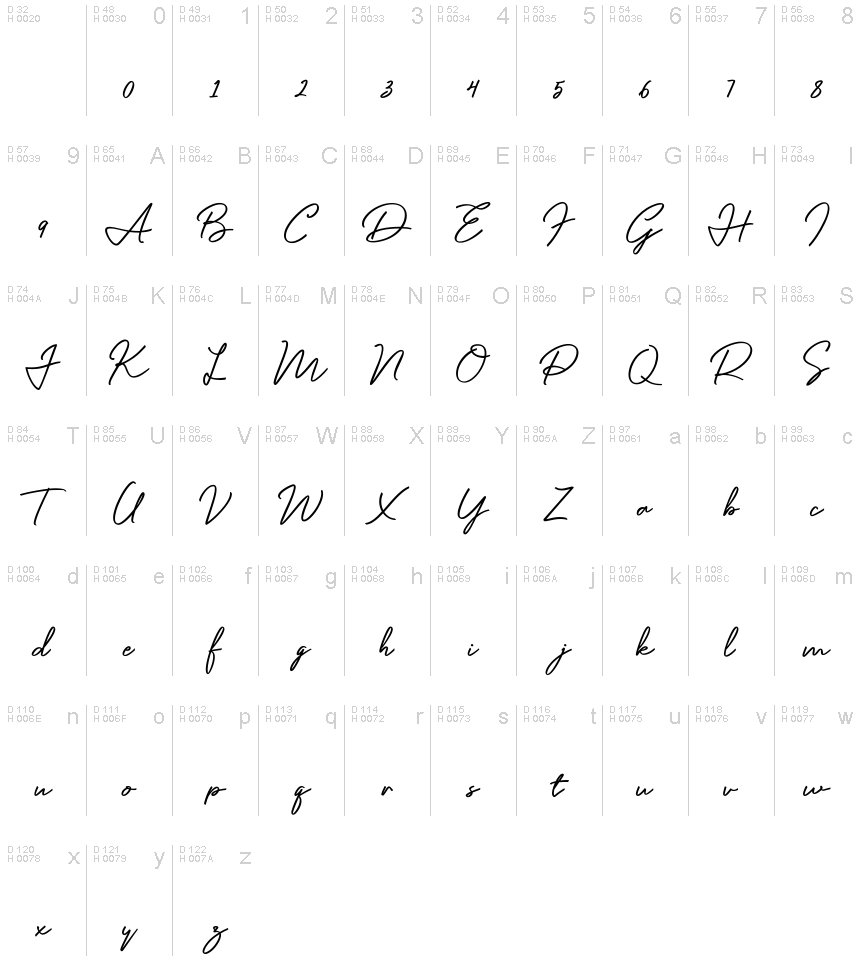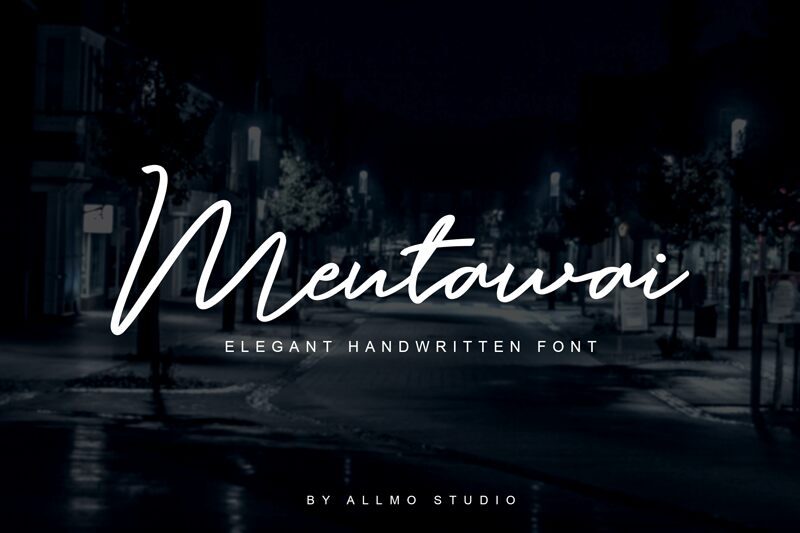
Mentawai
Mentawai is a captivating handwritten signature font that exudes a sense of effortless elegance. Crafted by the talented designers at www.movefont.com, this light and fluid script typeface seamlessly blends contemporary flair with the timeless charm of a handcrafted signature. The distinctive, organic strokes and natural rhythm of the letterforms lend an air of authenticity and personalization to any design.
Mentawai's versatility shines through, making it an excellent choice for branding, packaging, editorial layouts, and a wide range of other applications that require a sophisticated, hand-lettered aesthetic.